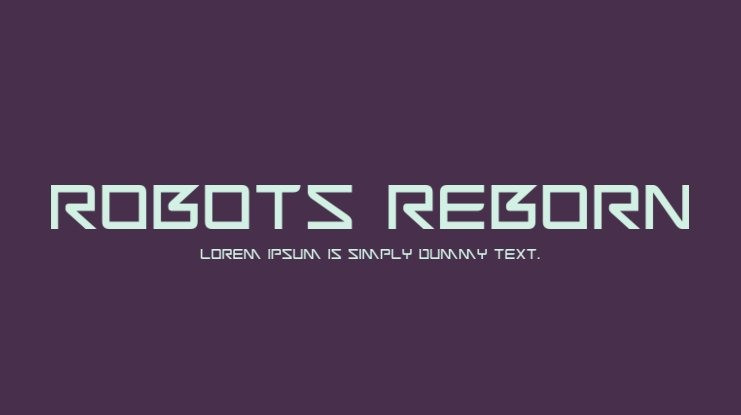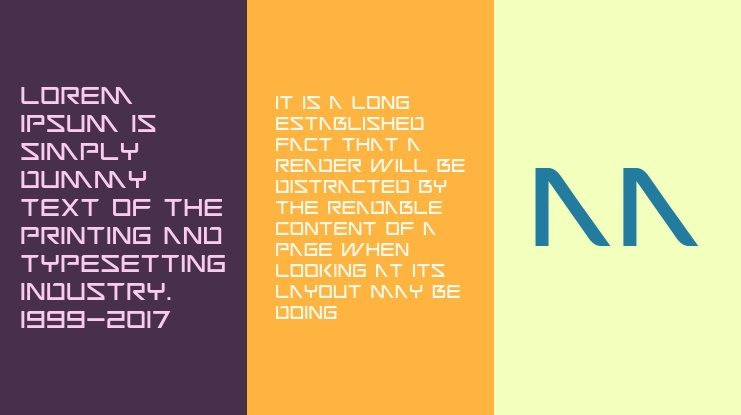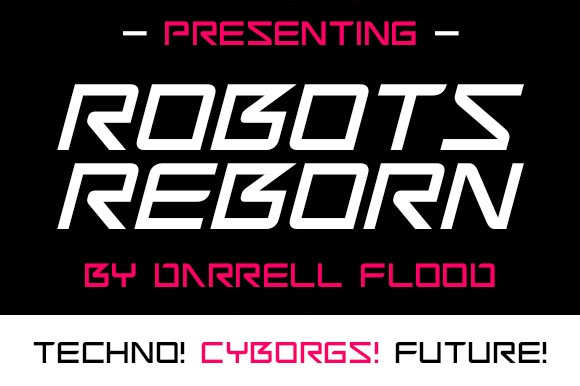
Robots Reborn Font
Robots Reborn Display Font,  is a futuristic modern font that features upper & lowercase characters, multilingual, numbers & punctuation. A modern display font that brings stoicism and intrigue to your title designs. A versatile font that works in both large and small sizes. This font is suitable for a wide variety of projects such as logos, invitations, branding, magazine, photography, card, product packaging, product mockup, mugs, quotes, posters, labels, signatures, editorials, art deco, and much more.